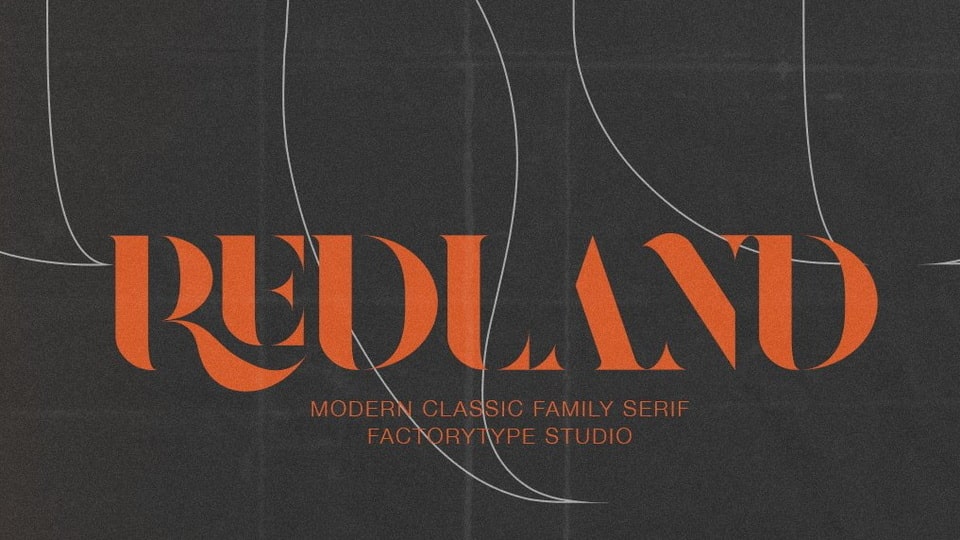
Download Redland font, a timeless serif typeface, perfect for creating a strong brand or logo. Its elegant curves are sure to catch your eye while maintaining a sophisticated personality.
Designer: Factory Type